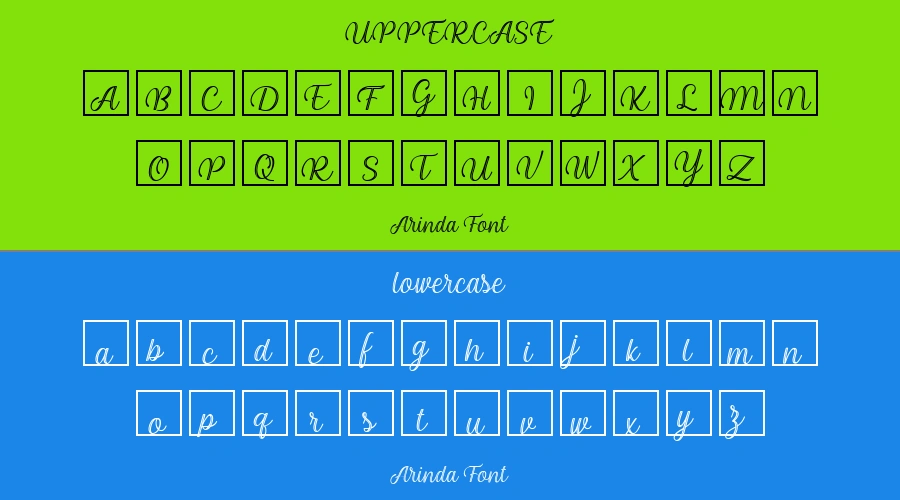
About Arinda Font
Arinda Font embodies typographic excellence through its masterful combination of swash extensions and clarity. Created for medical texts, this typeface delivers exceptional durability and professional finish across all applications. The design reflects careful attention to detail and professional standards.
Advanced capabilities include distinctive sharp terminals and versatile careful spacing, giving designers creative control. When used in instruction steps, Arinda Font exhibits remarkable purchase influence. The harmonious balance between crossbar height and standards alignment sets this typeface apart.